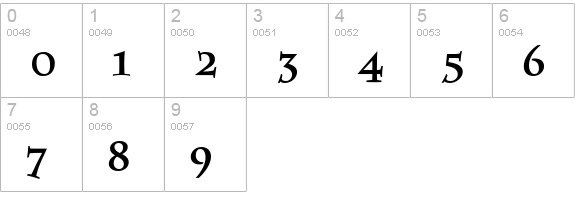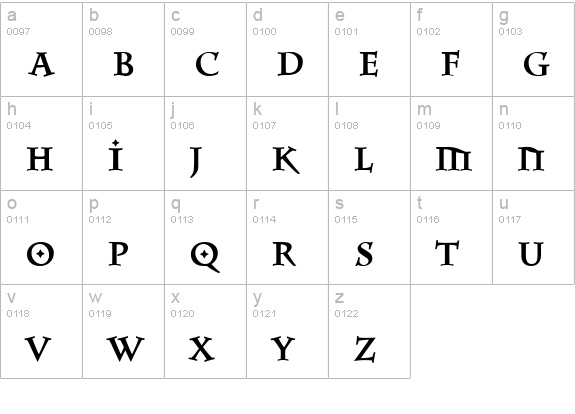
Parish Medium Font Details
Parish Medium is a balanced, medium-weight variant in the Parish typeface family \xE2\x80\x94 well suited to sub-headlines, navigation, and balanced editorial work.
Parish Medium font is a striking typeface that exudes a sense of timelessness and elegance. Its clean lines and balanced proportions make it suitable for a wide range of design projects, from branding and packaging to editorial and web design. The Parish Medium font features a harmonious blend of modern and vintage aesthetics, making it versatile and adaptable to various design styles. Its medium weight strikes the perfect balance between legibility and impact, making it ideal for headlines, titles, and subheadings. The beauty of Parish Medium font lies not only in its design but also in its accessibility. This font is available for free download at FontsMarket.com, making it easily accessible to designers and typography enthusiasts alike. Its availability for free makes it a valuable resource for both personal and commercial use. Whether you're working on a print project or a digital design, Parish Medium font will add a touch of sophistication and style to your work. Its timeless appeal and versatility make it a must-have in any designer's toolkit. Download Parish Medium font for free at FontsMarket.com and unlock its potential to elevate your designs to new heights. With its clean lines, balanced proportions, and wide range of applications, Parish Medium font is sure to become a go-to choice for designers seeking a touch of elegance and flexibility in their typographic compositions.